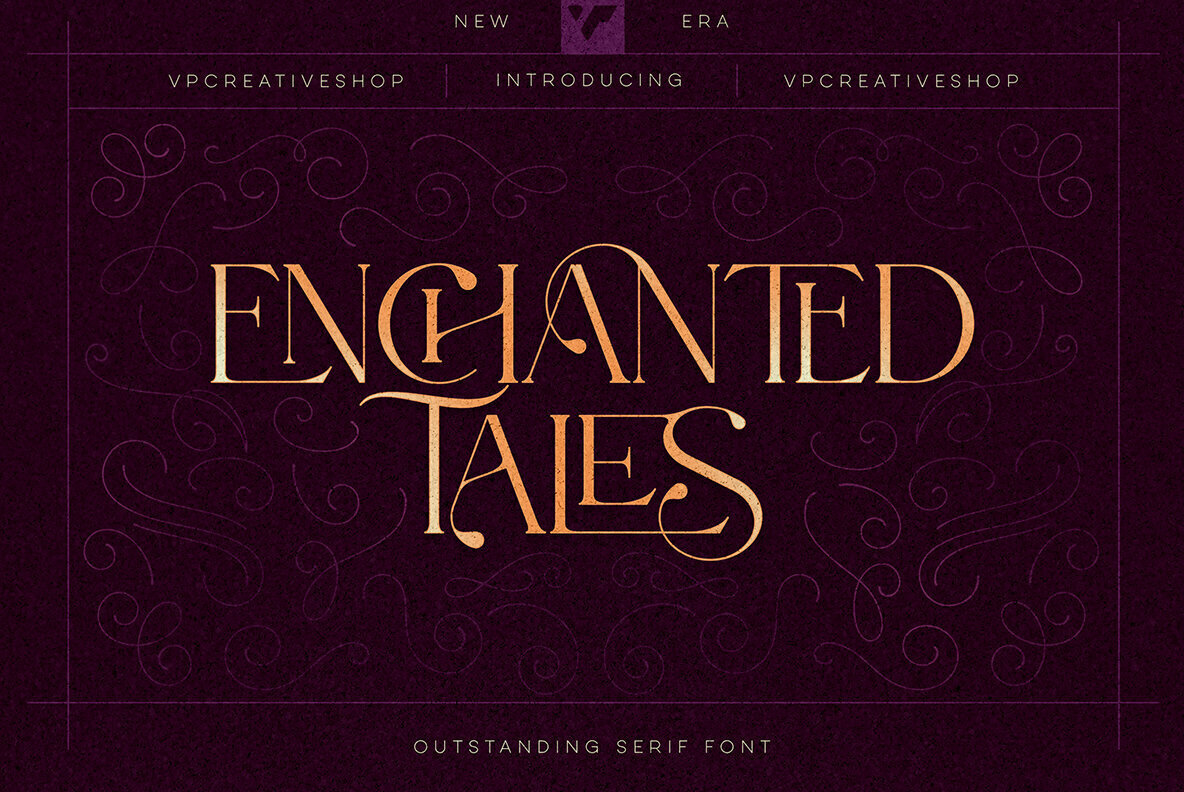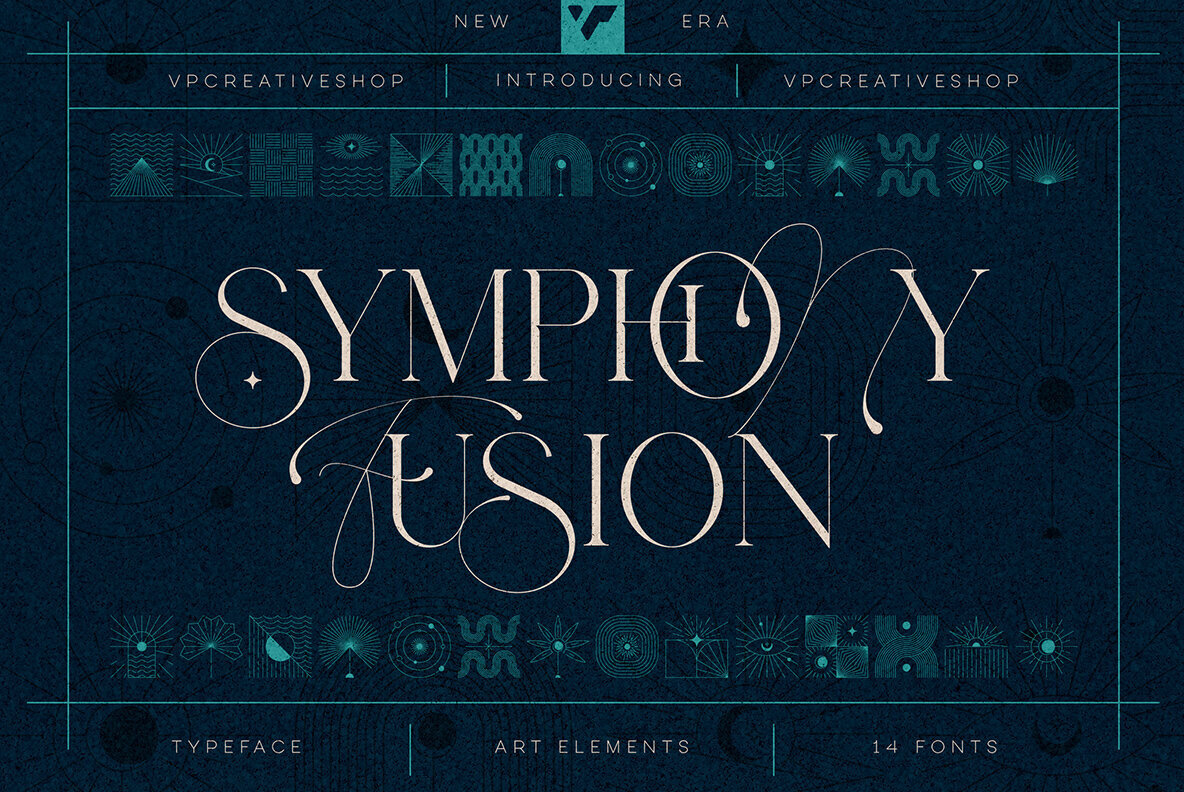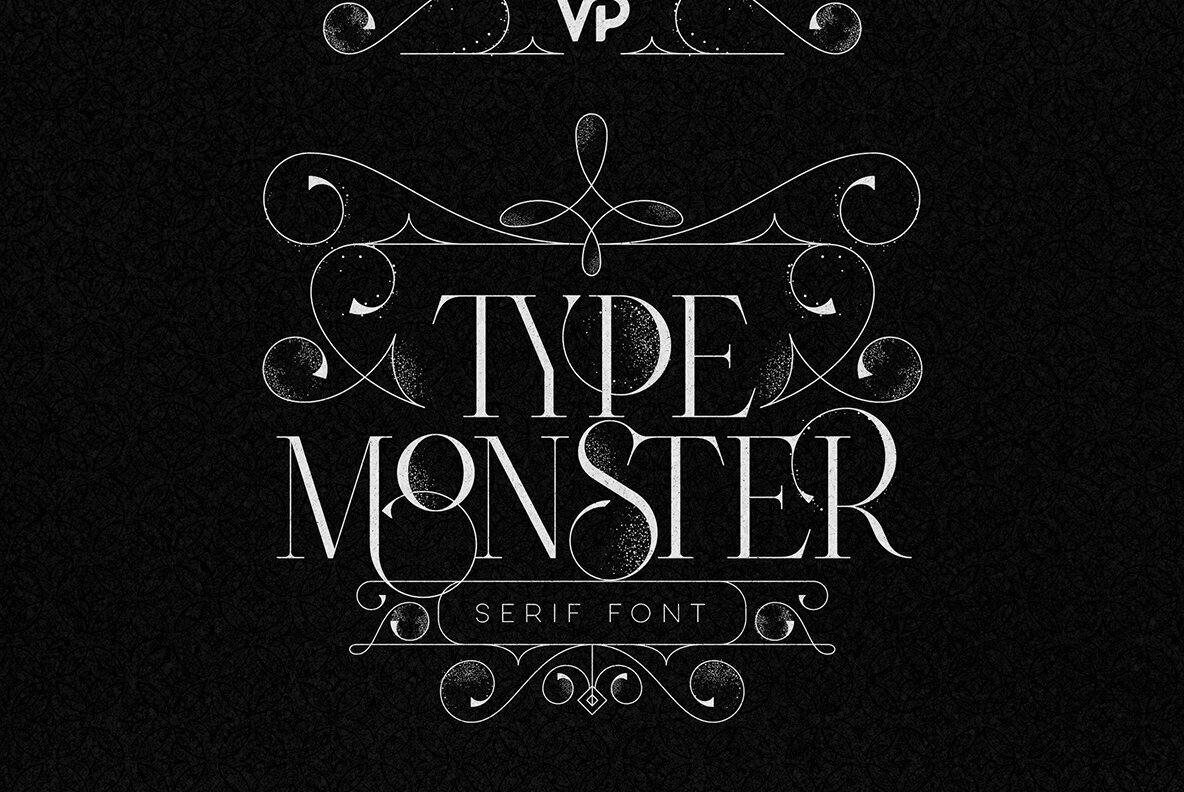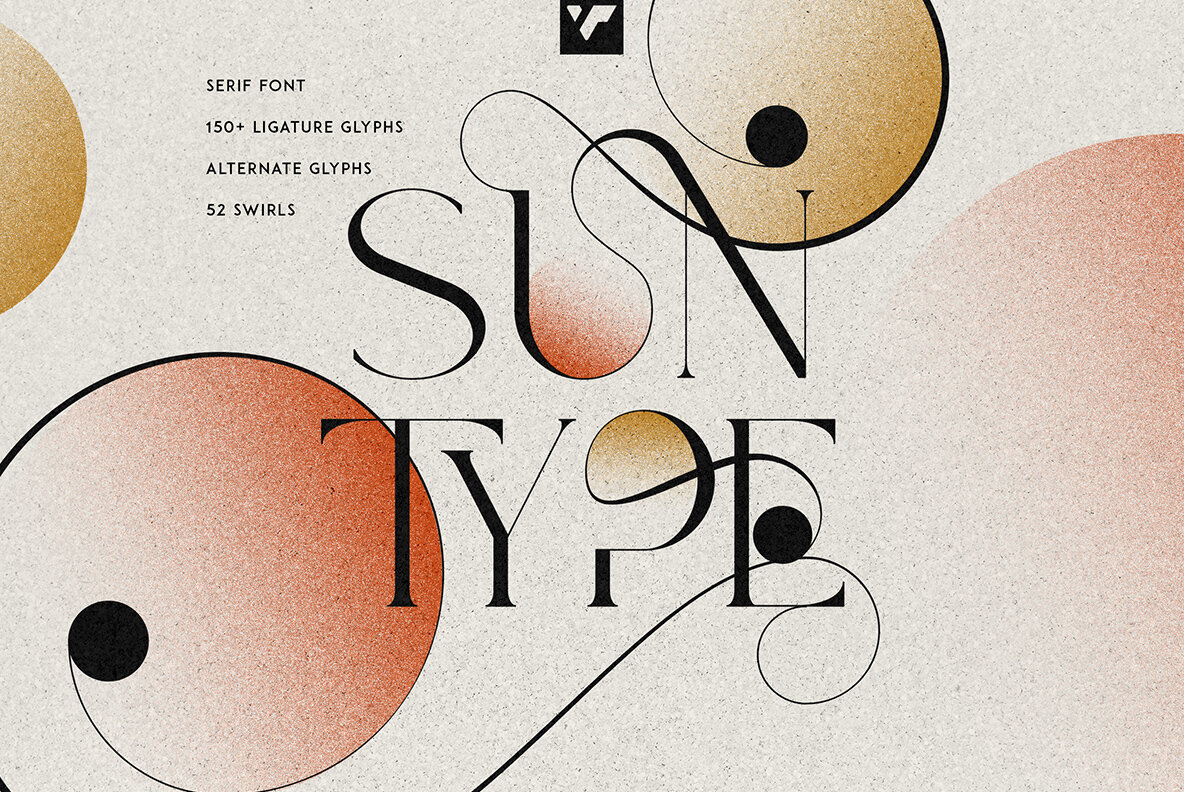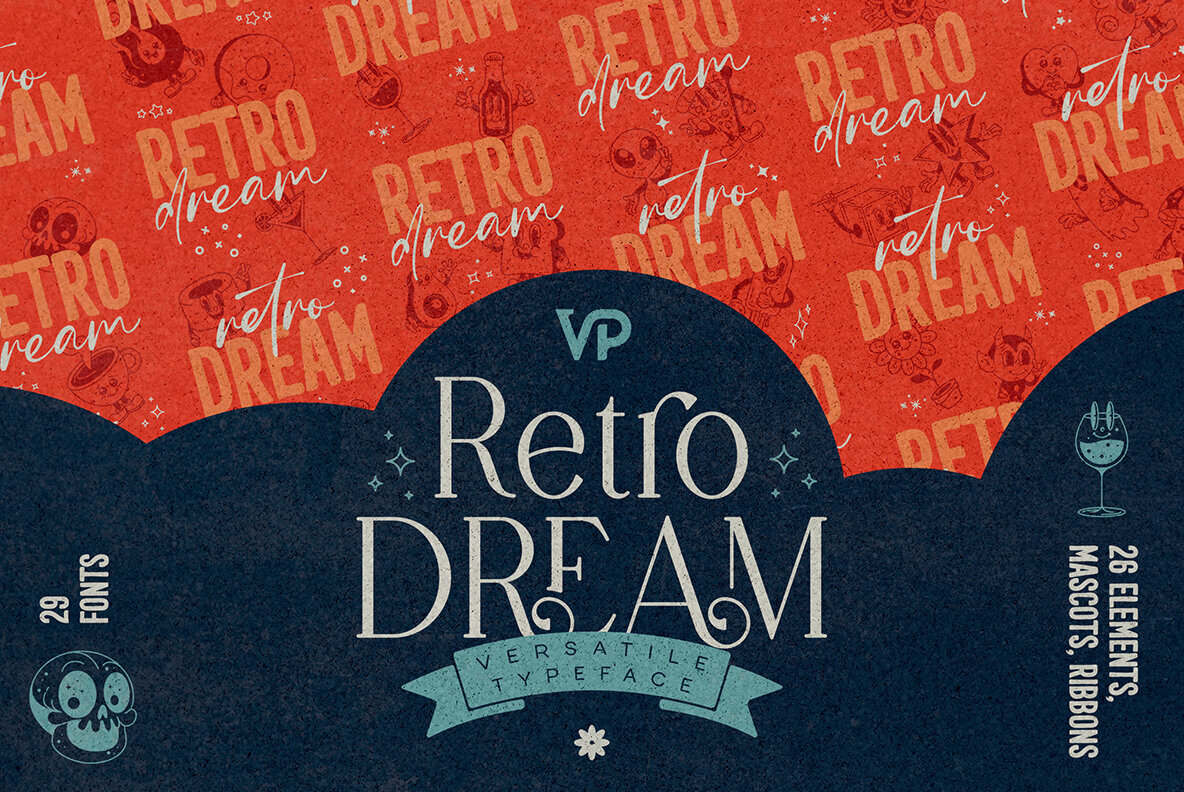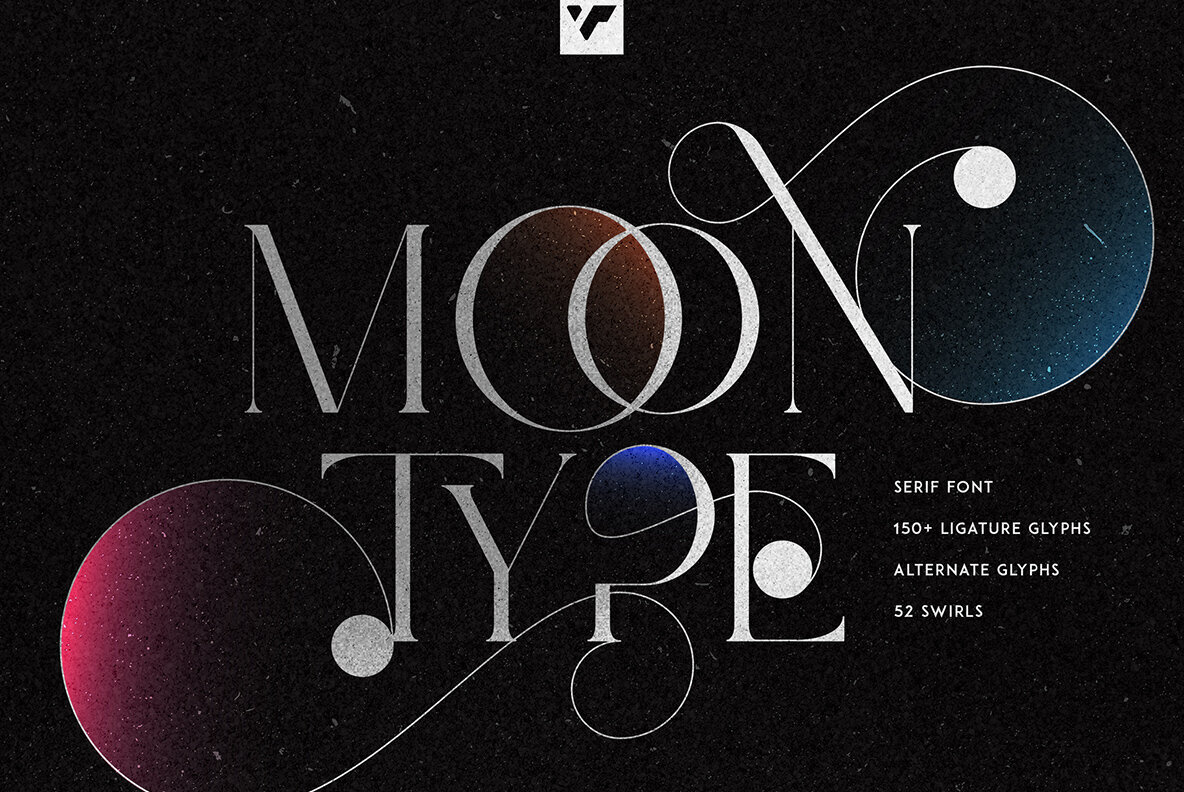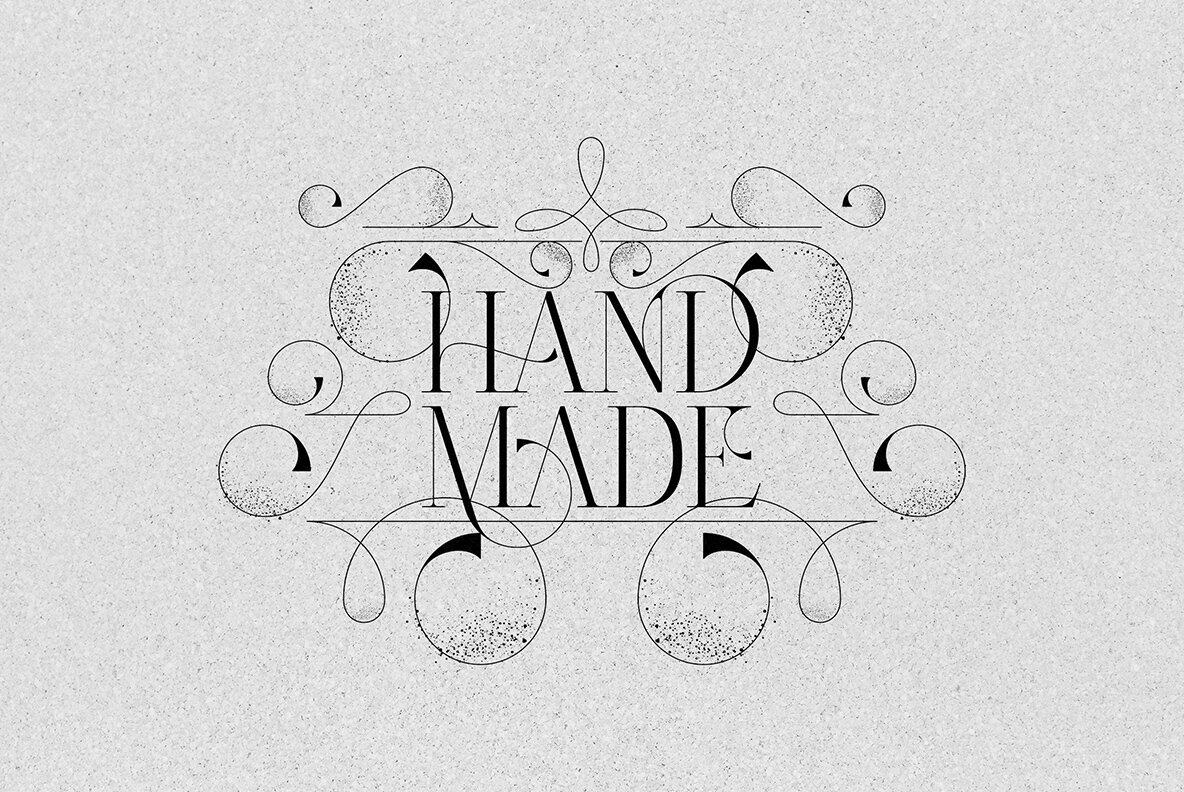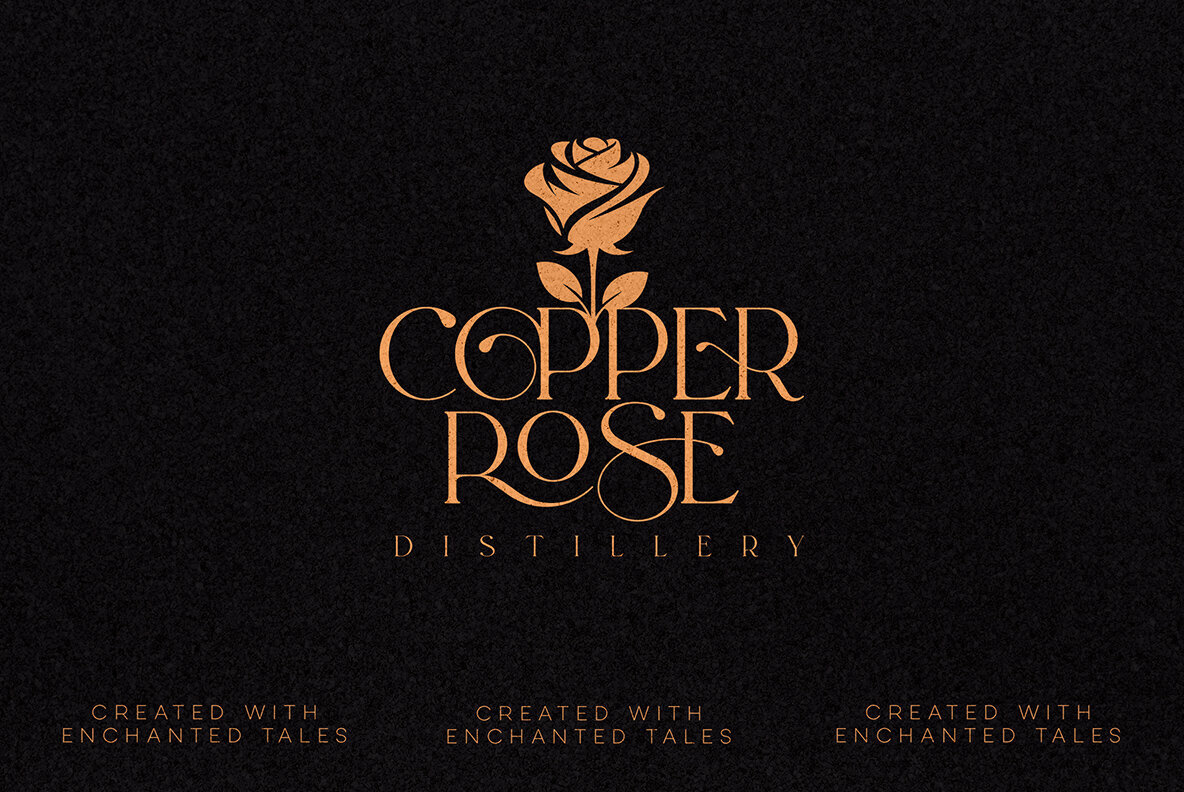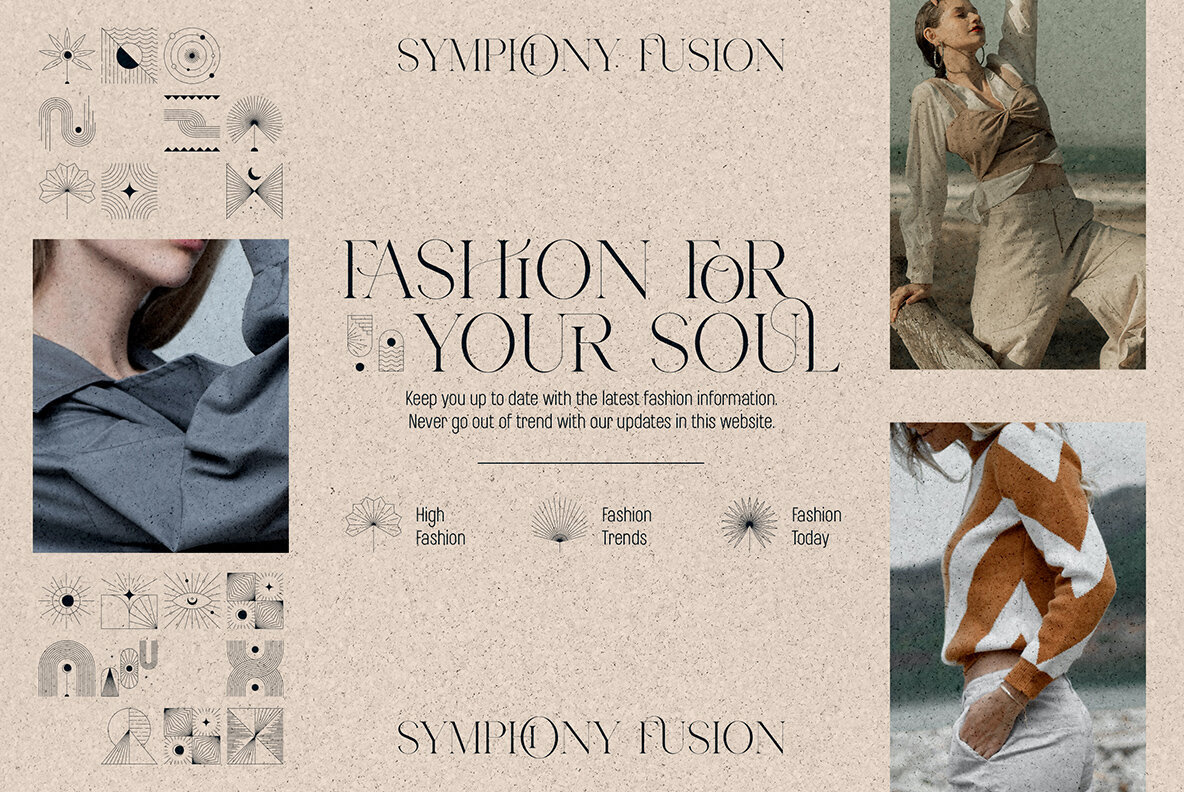
Dream Type Bundle Part 2 Font
This Dream Type Bundle, Part 2, is a captivating collection featuring seven extraordinary, ligature-rich typefaces: Enchanted Tales, Symphony Fusion, Type Monster, Sun and Moon Type, and Retro Dream. Carefully curated to inspire creativity, this bundle is perfect for enhancing your design projects. It supports a wide range of languages including Afrikaans, Albanian, Basque, Czech, Danish, Dutch, English, French, German, Italian, Polish, Portuguese, Romanian, Spanish, Swedish, and many more.